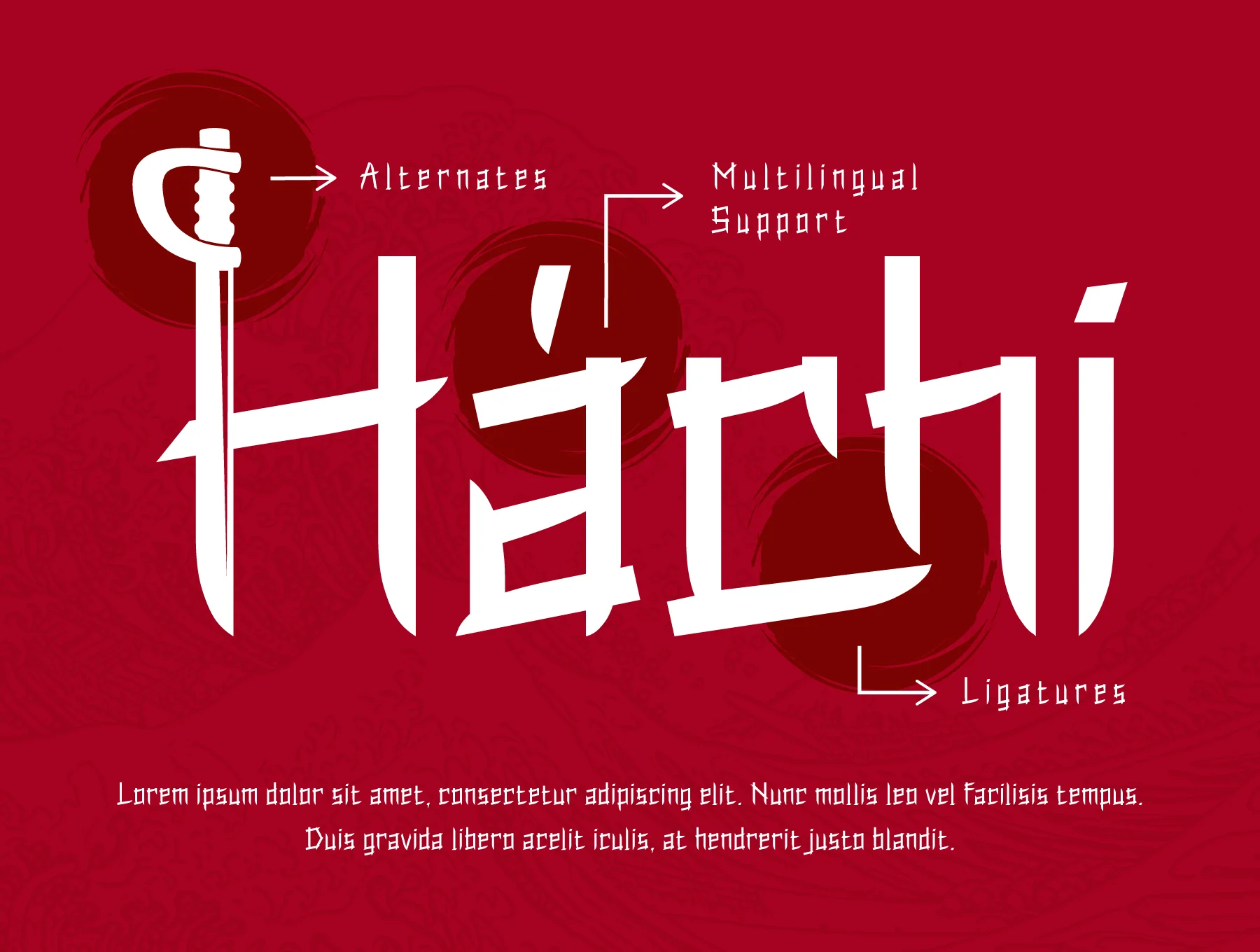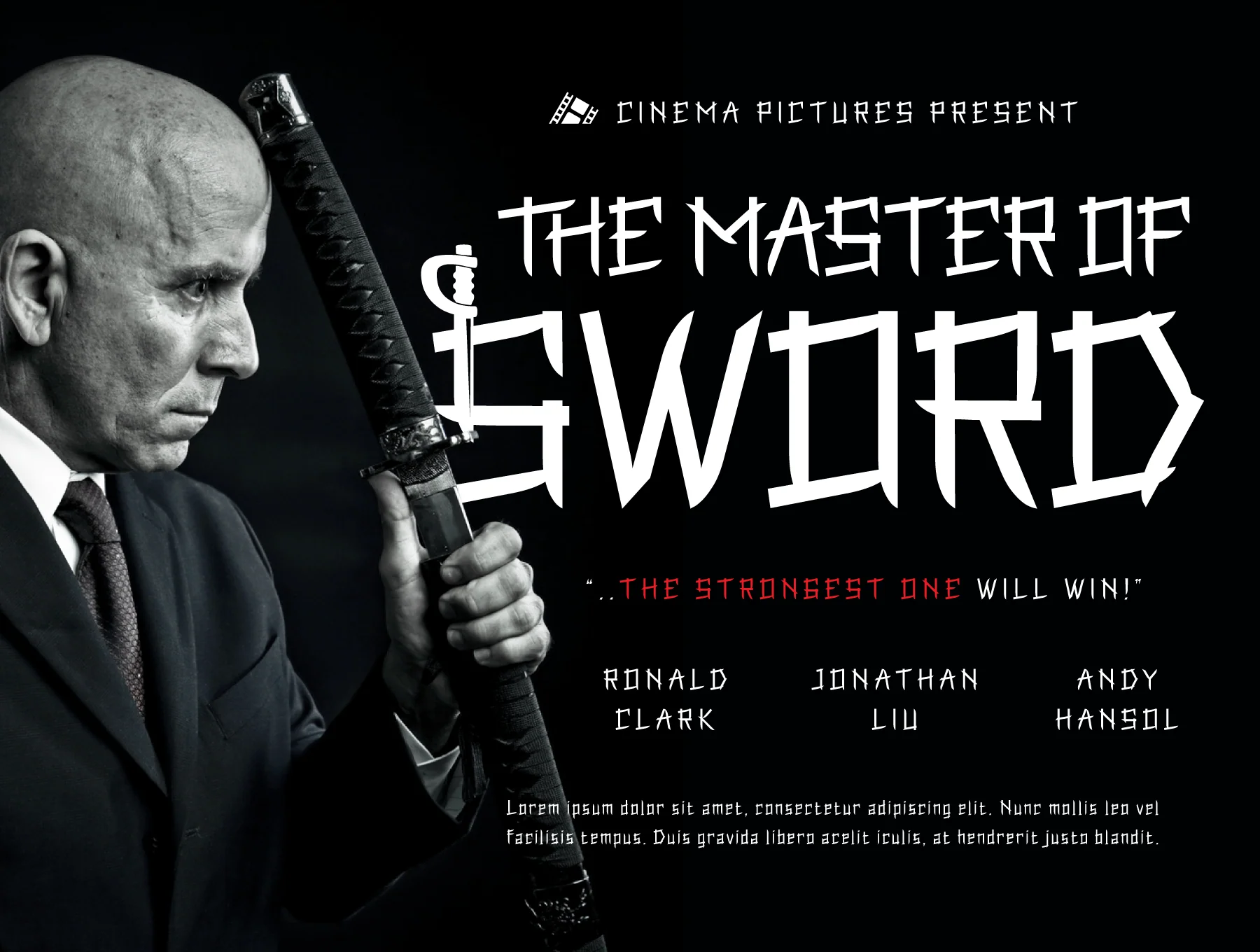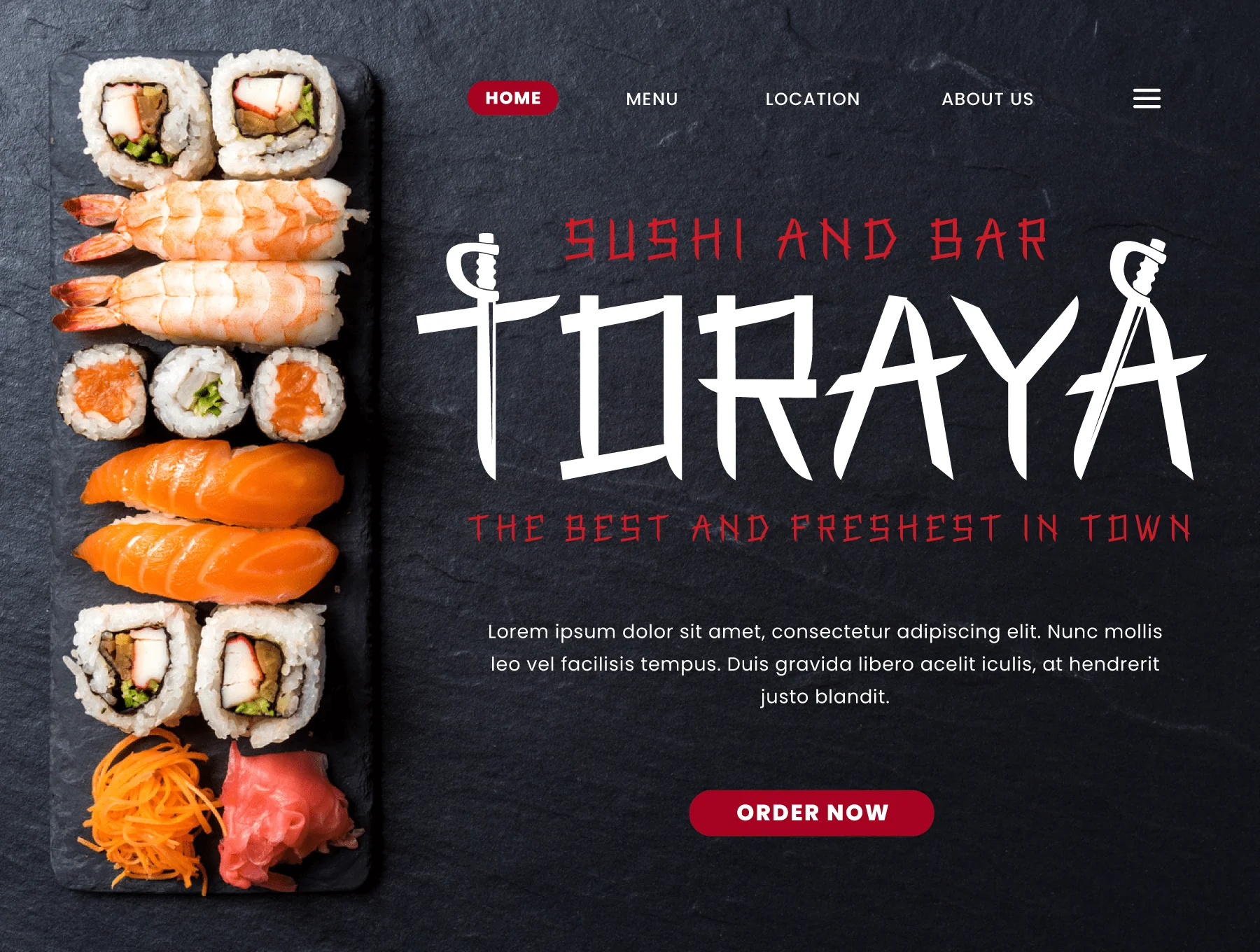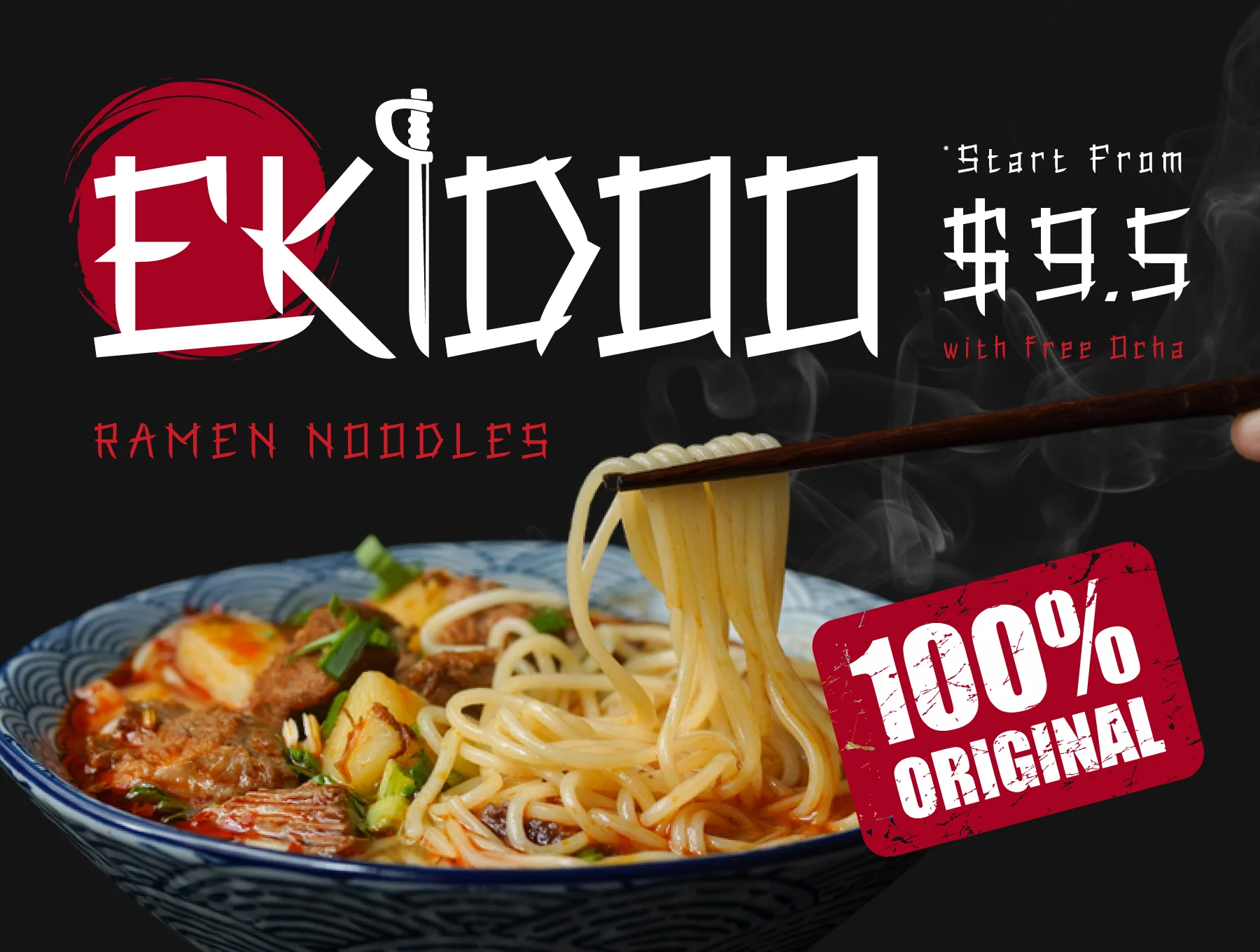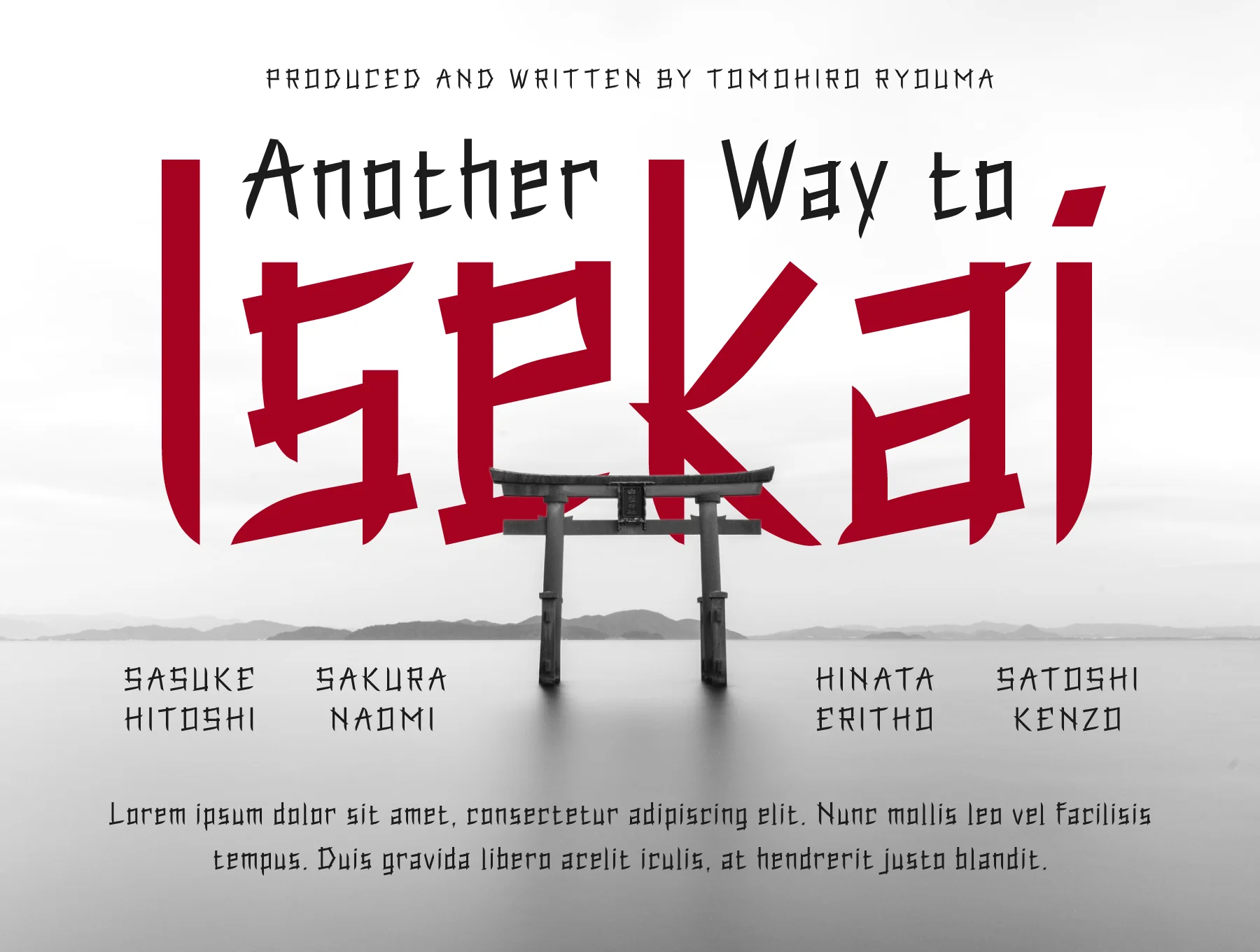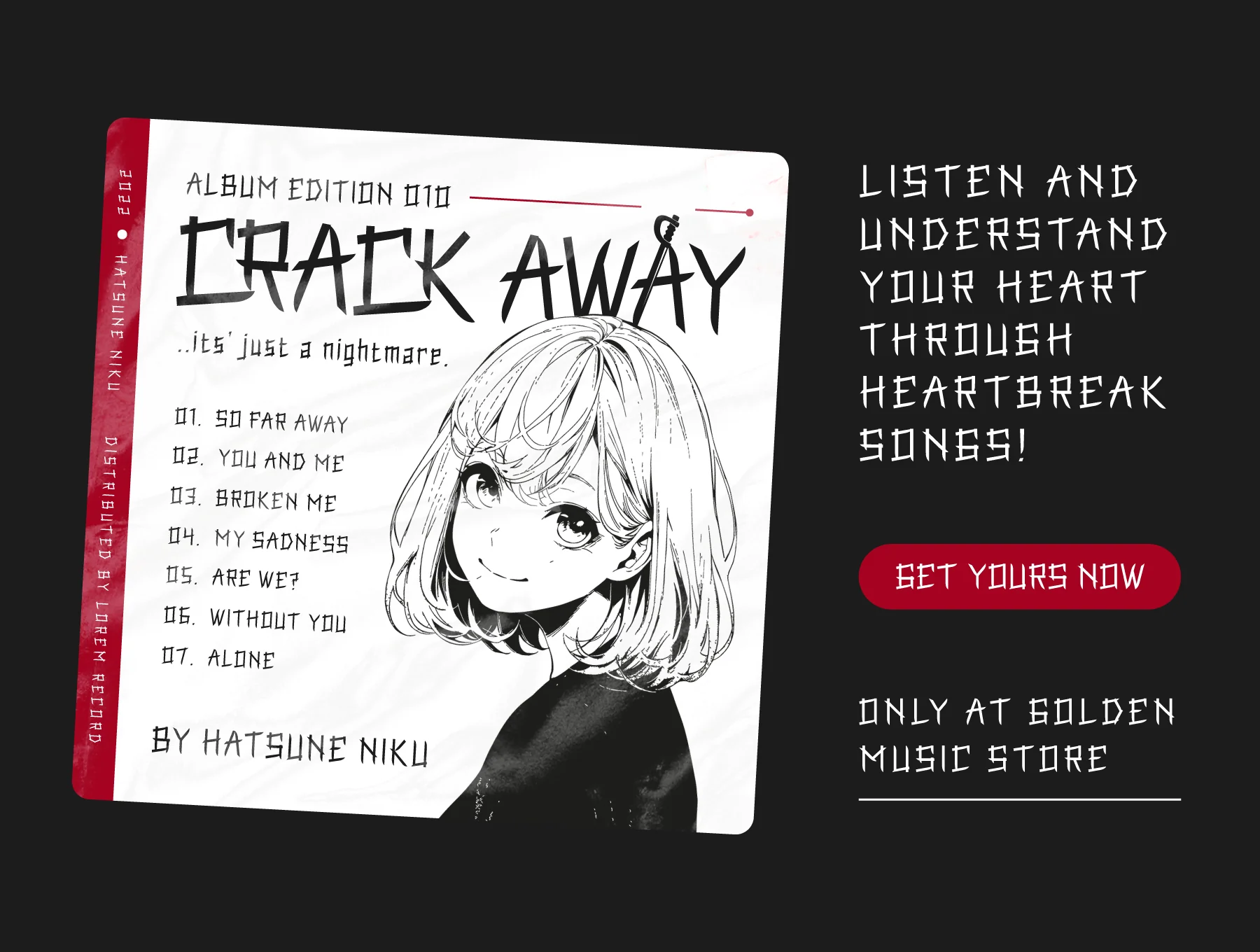
Qasengi | Japan font
Qasengi links you to Japanese culture through striking typographic design.
Includes stylistic alternates and ligatures
Qasengi brings Japanese and Southeast Asian character into a striking display font, blending classic elegance with a fresh modern edge. Ligatures, alternates, multilingual support, and PUA encoding help you craft expressive typography with ease. Includes OTF, TTF, WOFF, WOFF2, CSS, HTML, ISO Latin 1 glyphs, and simple installation.